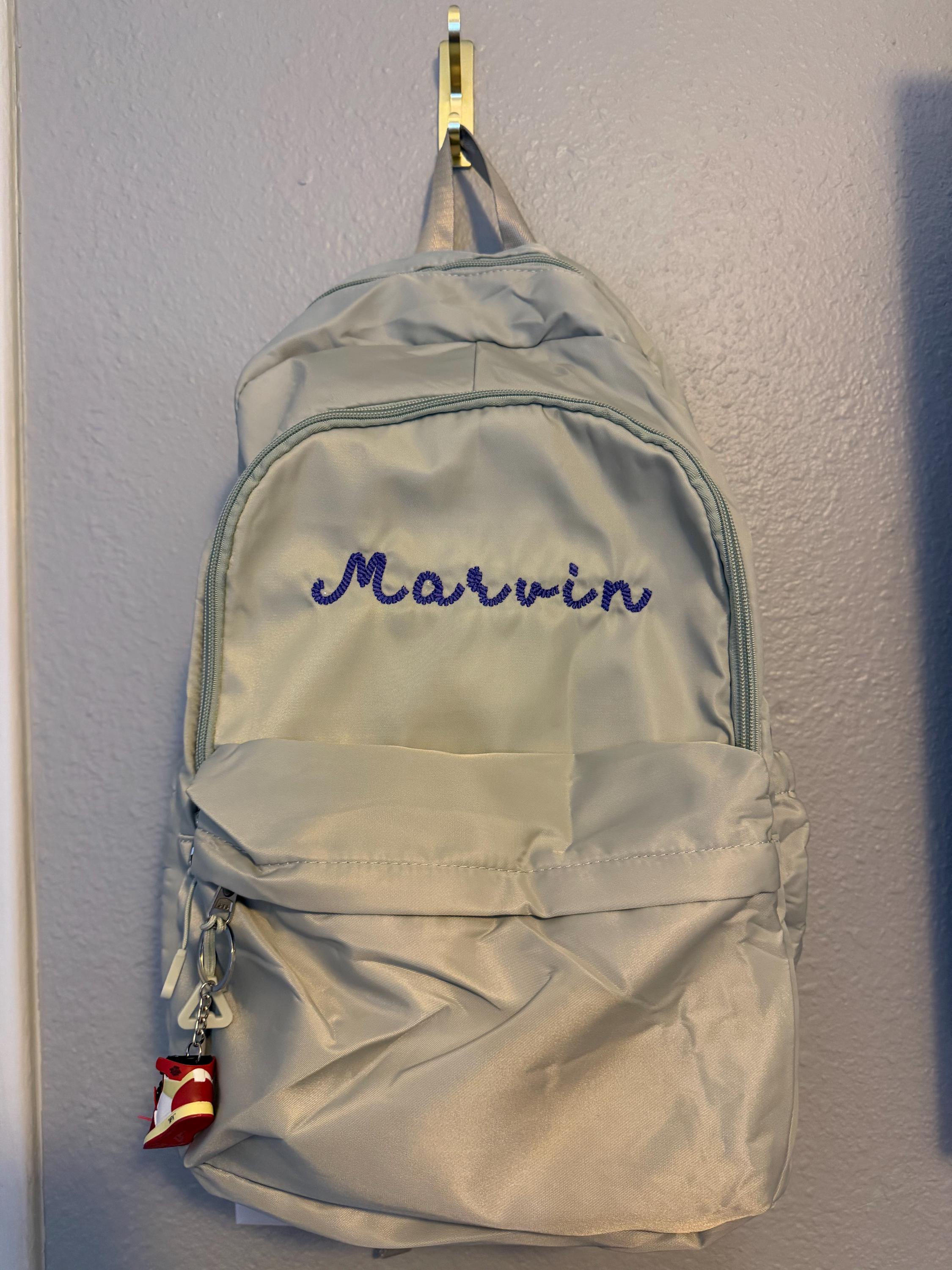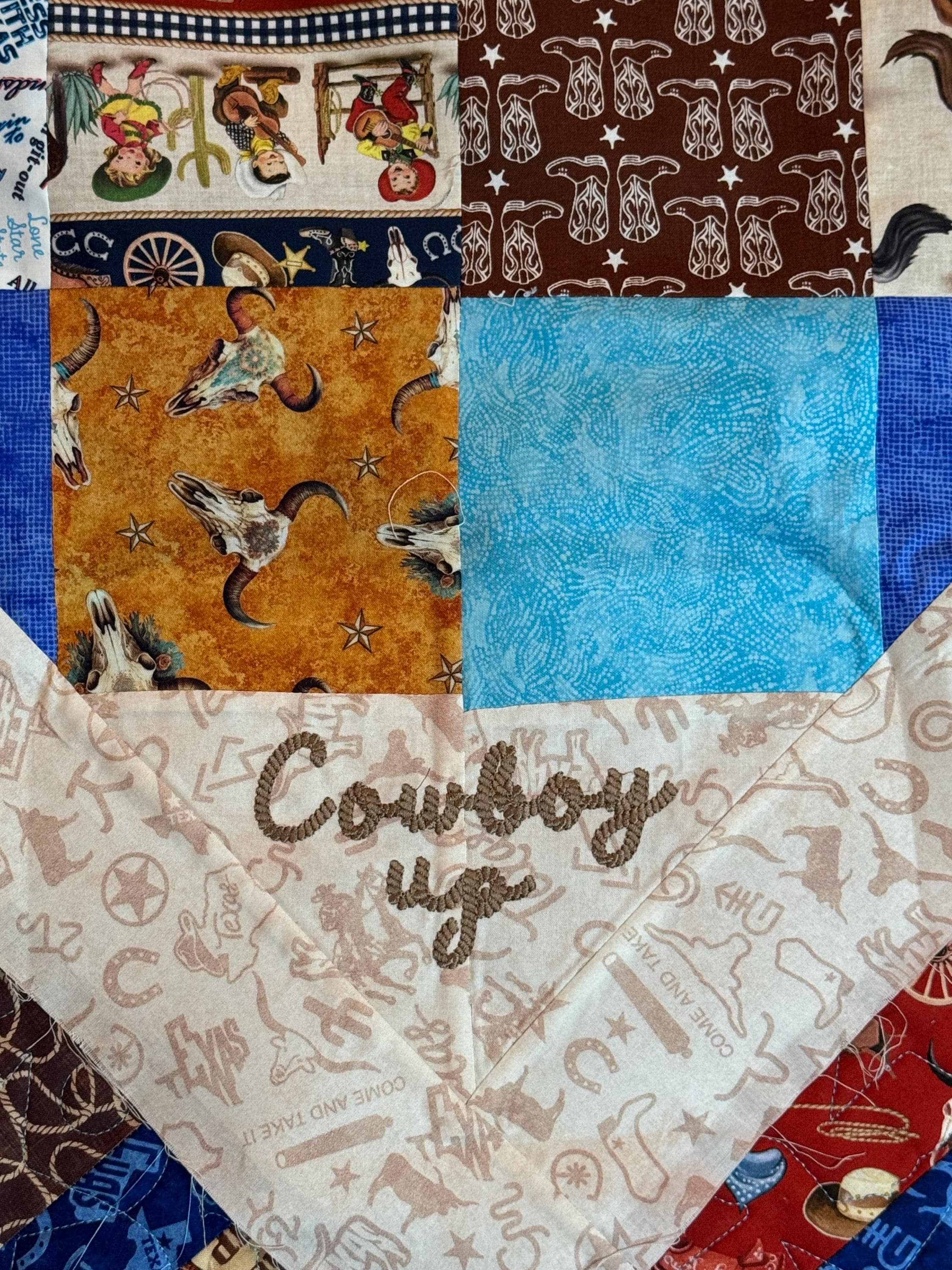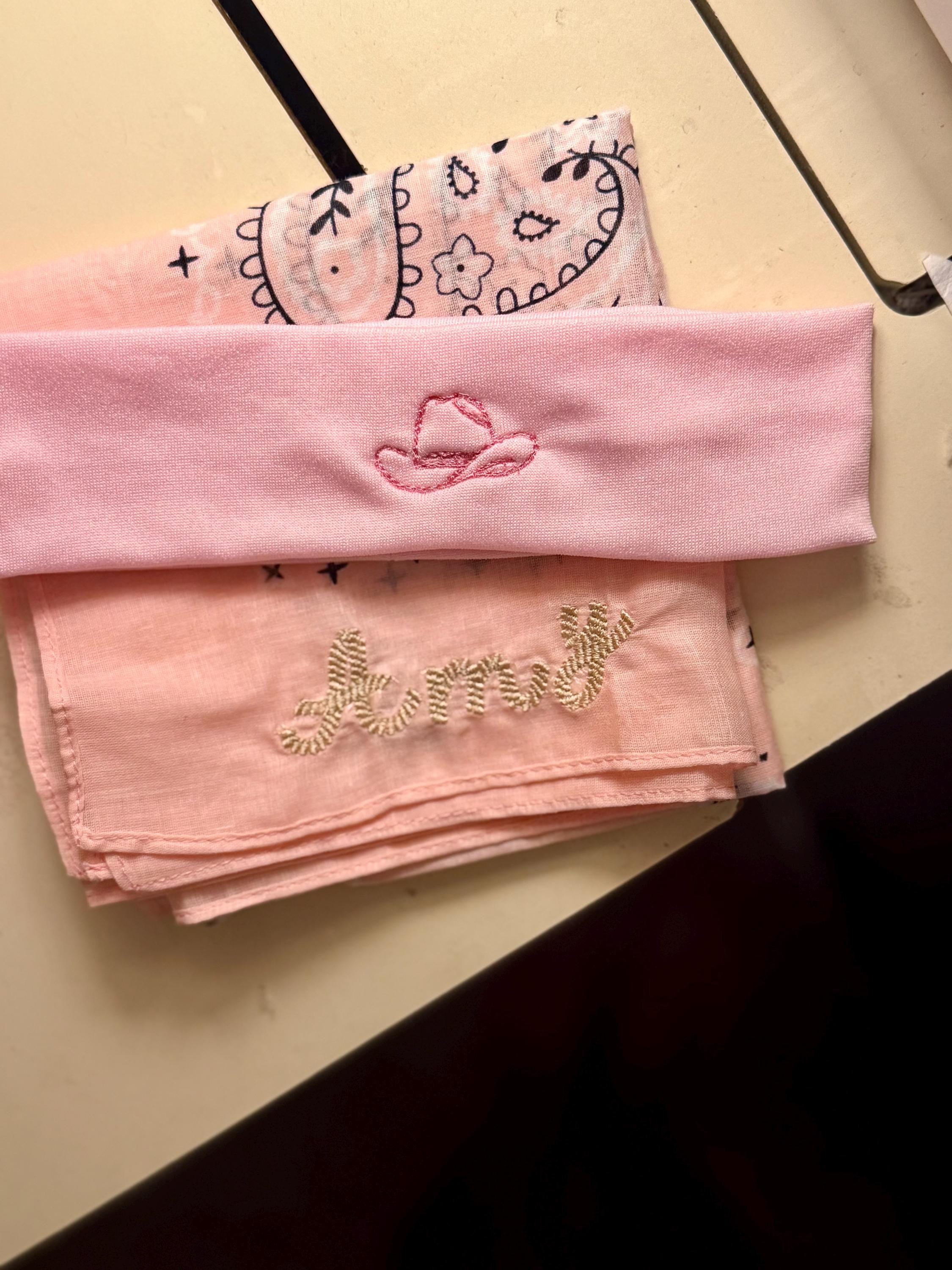
Cowboy Rope Stitch Handwritten Font
Give every project an authentic rodeo-style signature
Cowboy Rope Stitch Handwritten Font brings a rustic western rope script to your machine embroidery projects. This rope stitch font and cowboy embroidery font includes uppercase, lowercase, numbers and punctuation, sized 1.3in to 3.6in for a 4x4 hoop. Perfect as a rope stitch embroidery font or lasso script embroidery for monograms, this standard embroidery alphabet stitches out with 6322 stitches and a single color for crisp, readable lettering. Formats include PES, DST, EXP, VIP, HUS, XXX, JEF and VP3 for easy use across popular machines.
- Design contents: uppercase, lowercase, numbers, punctuation
Yes — this is an alphabet/font design containing uppercase, lowercase, numbers and punctuation, so you can create monograms, names and phrases in rope stitch across the provided sizes.
Yes — with a single color and a clear rope-stitch style (6322 stitches at typical sizes), this font is suitable for beginners who are comfortable hooping and using stabilizer; test stitch recommended.